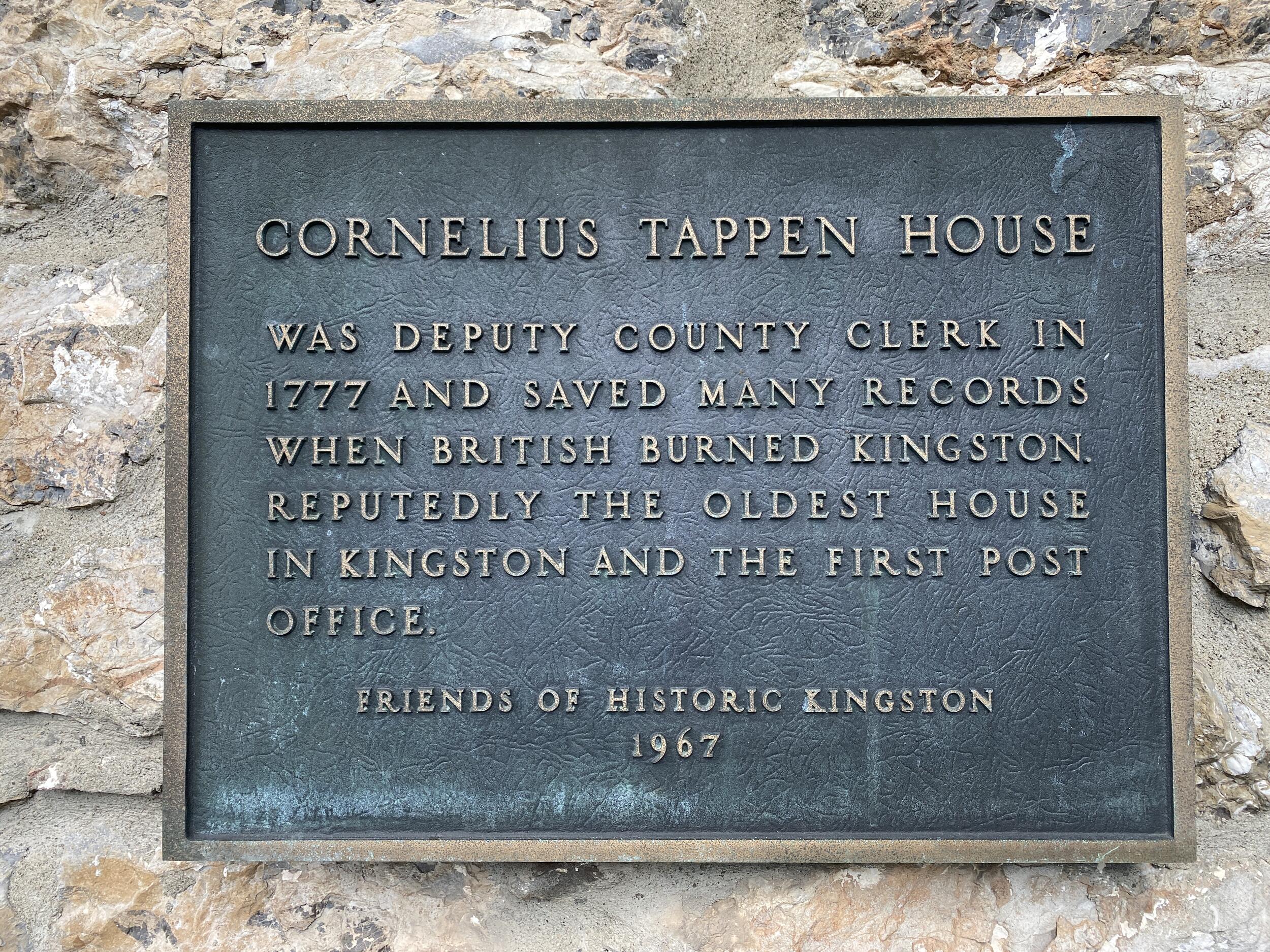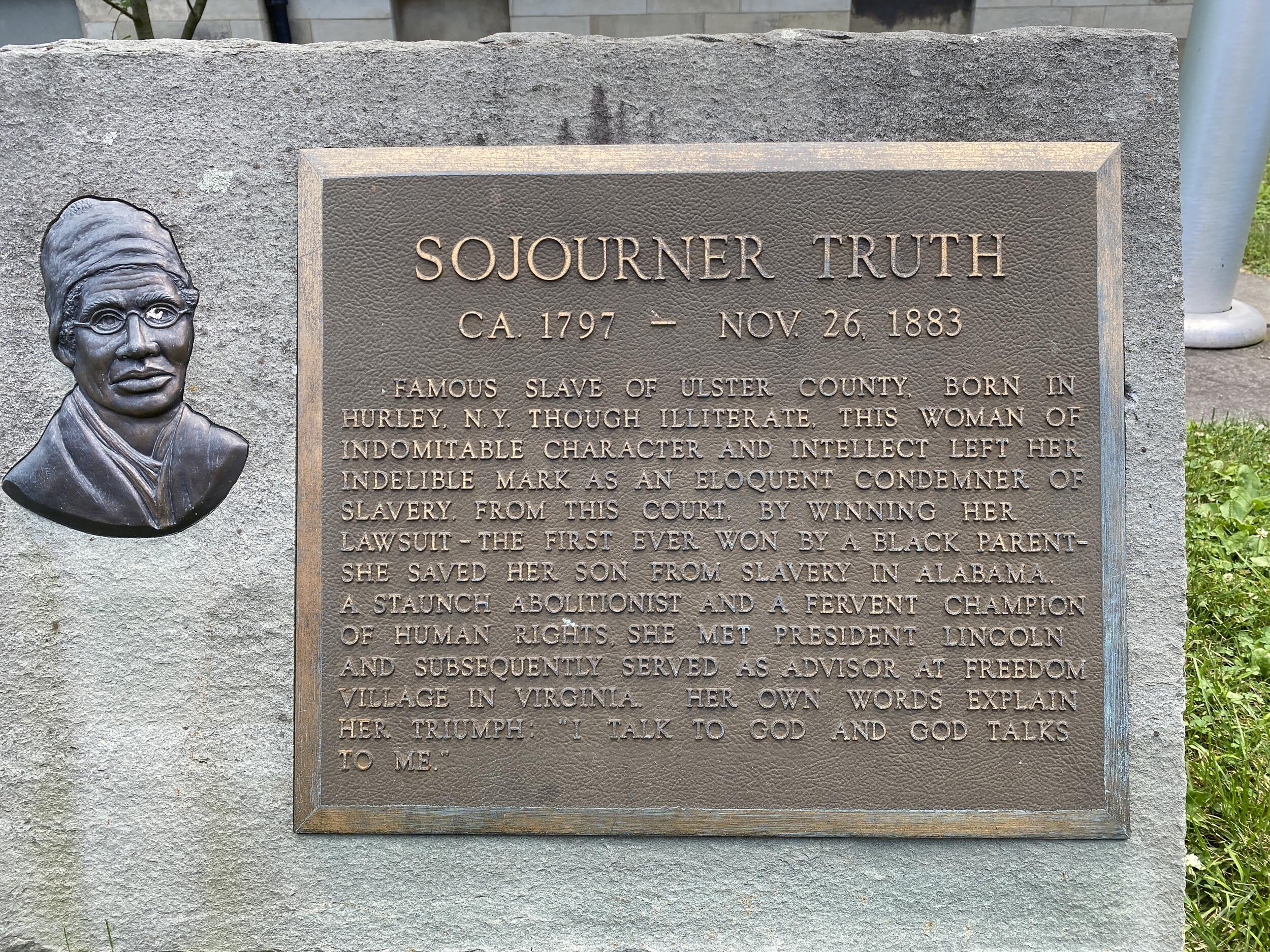
Help identifying serif used on cast bronze signs from 1967 and 2013
Hello! I spotted these two cast bronze signs that use what I believe are custom fonts, but I'm not sure! Perhaps there's an exact match or if not I'd love to find some similar options. The "o" and the "r" in particular seem to give this typography it's character. The first sign was created in 1967 and the second in 2013. I took these photographs myself in Kingston, New York. Any help is very appreciated!